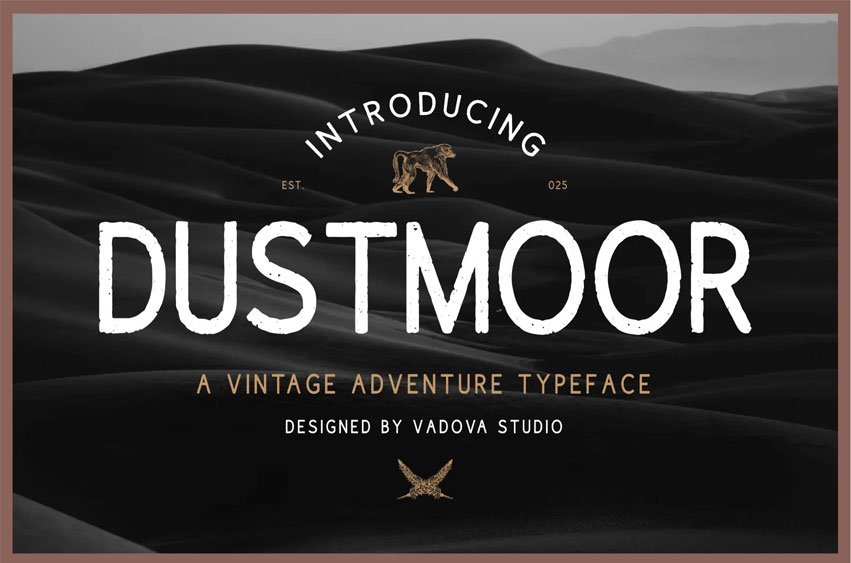
Dustmoor Font is a bold and rugged display typeface that captures the essence of classic adventure, craftsmanship, and timeless exploration. Designed with strong, confident strokes and subtly irregular contours, it brings a handcrafted aesthetic that feels both nostalgic and enduring. The letterforms evoke the charm of vintage signage, wilderness trail markers, and hand-painted branding from a bygone era, making it a perfect choice for designers looking to infuse their work with authenticity and personality.
Relevance and Use Dustmoor for Vintage Adventure is perfect for vintage branding, adventure logo, heritage product packaging, old-school travel posters, editorial headlines, artisanal product labels, retro whiskey or coffee branding, outdoor gear logo, storytelling design, historical documentaries, adventure type, serif adventure, antique lettering, exploration font, nostalgic serif, bold display serif, outdoor label, serif storytelling, timeless font